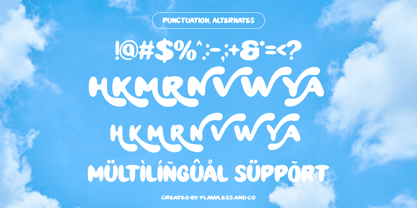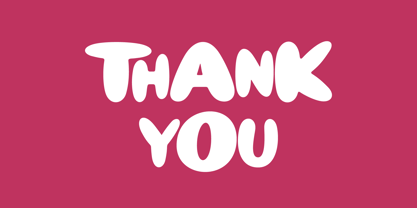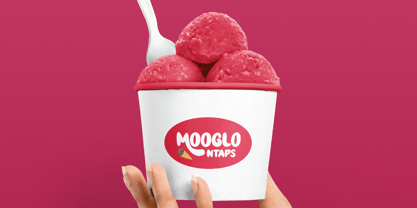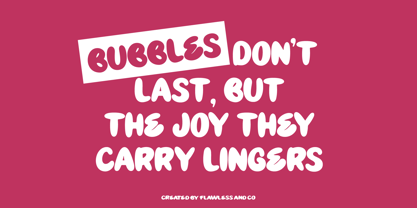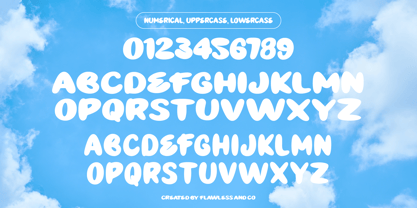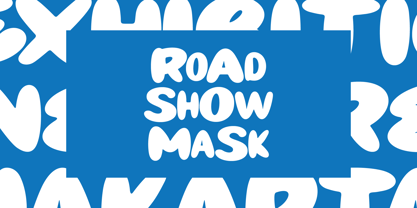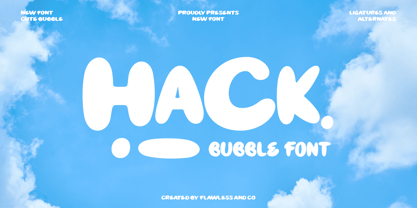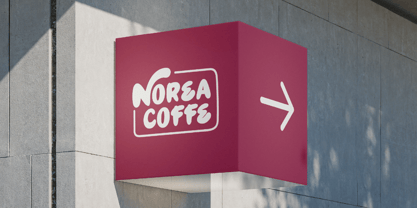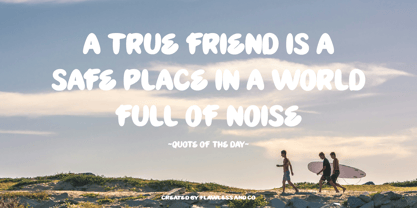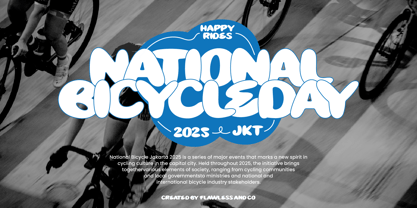
Hackbubble
by Flawlessandco
The Hackbubble Font Family was designed by Achmad Yani and published by Flawlessandco. Hackbubble contains 1 styles. More about this family
Hack Bubble is a playful bubble display font full of personality, featuring rounded and bold letterforms that radiate a fun, modern, and friendly vibe. Its cheerful curves and balanced proportions make it perfect for creative projects that want to stand out while staying approachable. Whether for branding, product packaging, or social media designs.
Designers: Achmad Yani
Foundry: Flawlessandco